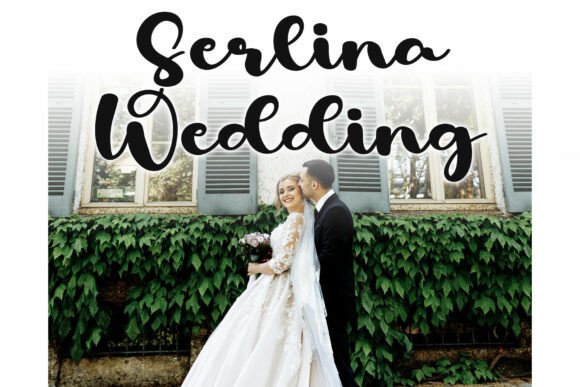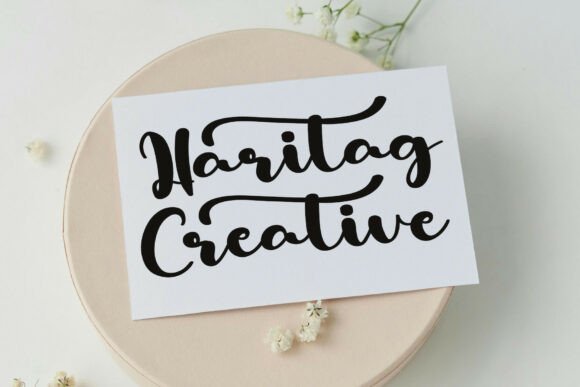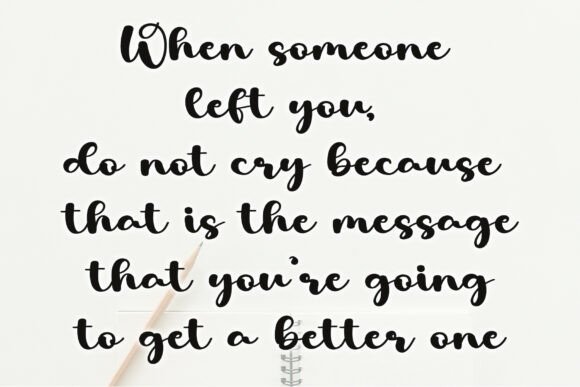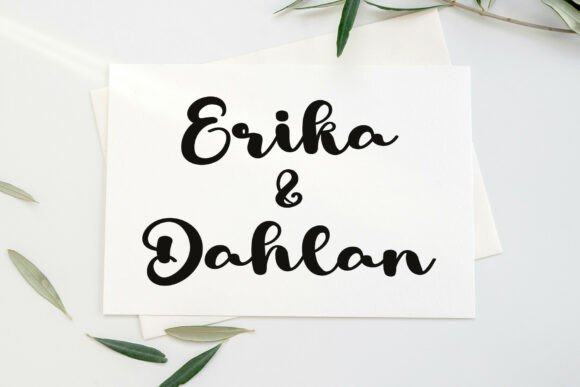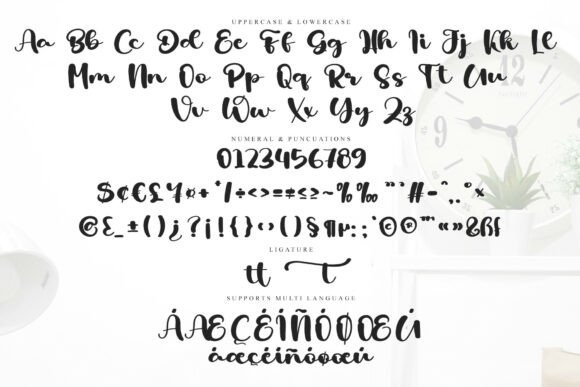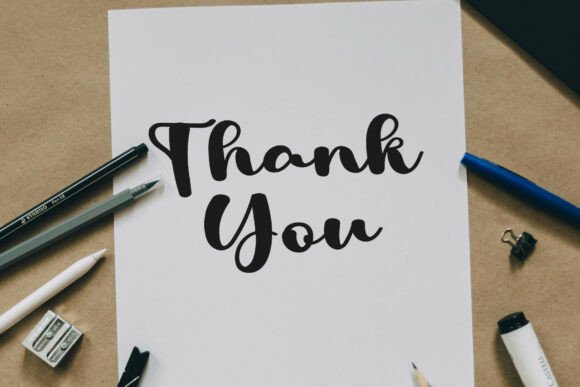
The Dignity Font: A Sweet and Cursive Handwritten Delight
- ✨ Sweet and Cursive: Dignity font boasts a beautiful, handwritten cursive style that’s perfect for adding a touch of elegance and whimsy to your designs.
- ✅ Versatile: This font is incredibly versatile and can be used for a wide range of design projects, from branding and logos to wedding invitations and greeting cards.
- 💕 Romantic and Joyful: The Dignity font exudes a sense of joy and romance, making it perfect for projects that require a touch of warmth and personality.
- 🤔 Limited Use in Small Sizes: As with many script fonts, Dignity may not be the best choice for very small font sizes, as some details may get lost.
- ⚠️ Requires Attention to Kerning: As with any font, it’s essential to pay attention to kerning to ensure that your text looks polished and professional.
- Explore stylistic alternates and swashes to add more flair to your text.
The Backstory of Dignity Font
The Dignity font was designed with the intention of creating a beautiful, elegant, and yet casual script font. The designer aimed to craft a font that would be perfect for a wide range of design projects, from wedding invitations to branding and advertising. With its sweet and cursive handwritten style, the Dignity font has become a popular choice among designers and creative hobbyists.
| What is the Dignity font best used for? | The Dignity font is perfect for a wide range of design projects, including branding, logos, wedding invitations, greeting cards, and more. |
| Is the Dignity font suitable for body text? | While the Dignity font is beautiful, it’s best used for headlines and titles. For body text, a more traditional font might be more suitable. |